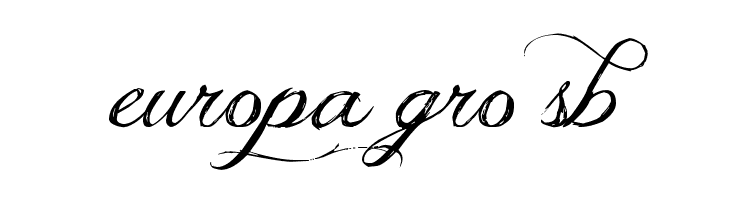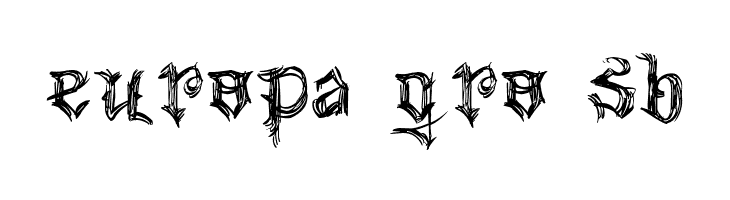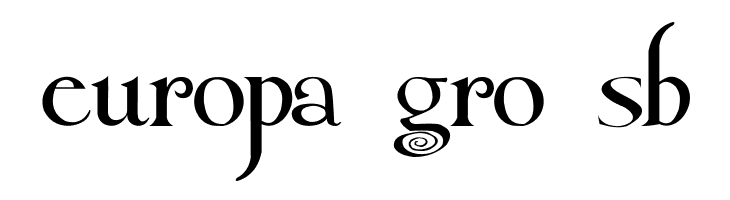
A whimsical, elegant cursive script with ornate flourishes.
An ornate script font with decorative swirls and elegant flourishes.
An ornate and decorative serif font with intricate flourishes.
A decorative serif font with elegant flourishes and classic styling.
A decorative serif font with elegant flourishes and a dramatic style.
A decorative and elegant font with classic flourishes.
Ornamental and decorative glyph set with intricate flourishes and motifs.
A whimsical and decorative font with intricate swirls and flourishes.